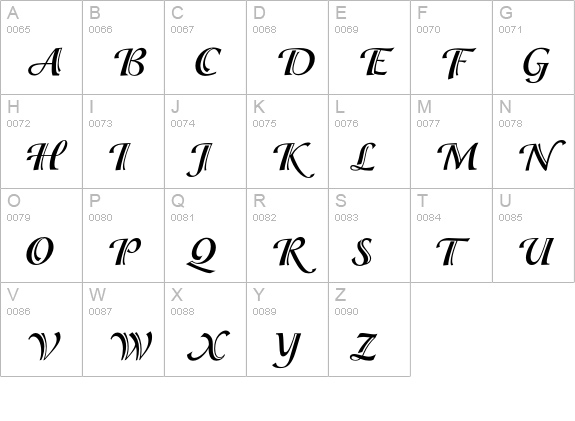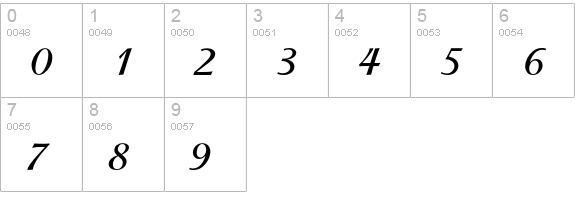
IsadoraEF-Bold is a strong, high-contrast variant in the IsadoraEF typeface family \xE2\x80\x94 well suited to headlines, attention-grabbing titles, and strong calls-to-action.
IsadoraEF-Bold is a stunningly bold and captivating font that exudes confidence and elegance. Its strong and commanding presence makes it the perfect choice for attention-grabbing headlines, impactful titles, and impactful branding materials. This font combines modernity with a touch of sophistication, creating a visually striking display. With its bold and prominent letterforms, IsadoraEF-Bold effortlessly captures the attention of the reader, ensuring that your message is conveyed with utmost clarity and impact. The clean lines and distinct curves of each character contribute to its overall aesthetic appeal, making it a versatile choice for a wide range of design projects. One of the best things about IsadoraEF-Bold is that it is available for free download at FontsMarket.com. This means that designers, professionals, and enthusiasts alike can easily access and utilize this remarkable font for their creative endeavors. Whether you need it for personal or commercial use, IsadoraEF-Bold offers you the freedom to create without any limitations. In addition to its striking visual appeal and free availability, IsadoraEF-Bold also boasts excellent legibility, ensuring that your text remains clear and easy to read, even at smaller sizes. This makes it an ideal choice for body copy, as well as for any design project that requires a balance between style and readability. Add a touch of boldness and sophistication to your designs with IsadoraEF-Bold. Download this exceptional font for free at FontsMarket.com and elevate your creative projects to new heights.